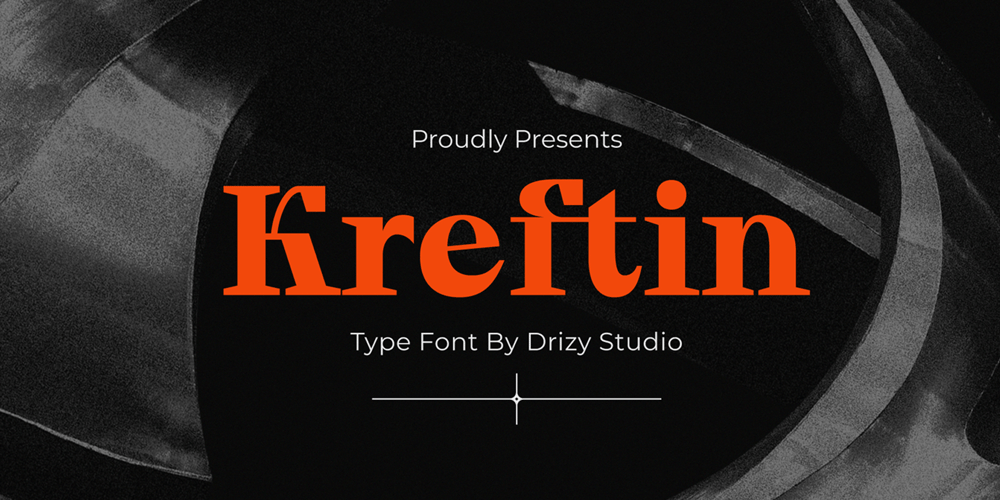
Kreftin Font Family was designed by Panca Ahmadi Hasan and published by Drizy Font. Kreftin contains 1 styles and family package options. Kreftin – Modern Serif FontKreftin font is a special font for modern display serif font. Offering all the basic styles you will need for a successful project.Kreftin Features: Uppercase & Lowercase Numeral & Punctuation Ligatures Do not hesitate to contact me if you have any questions about this product. Hope you like it and enjoy